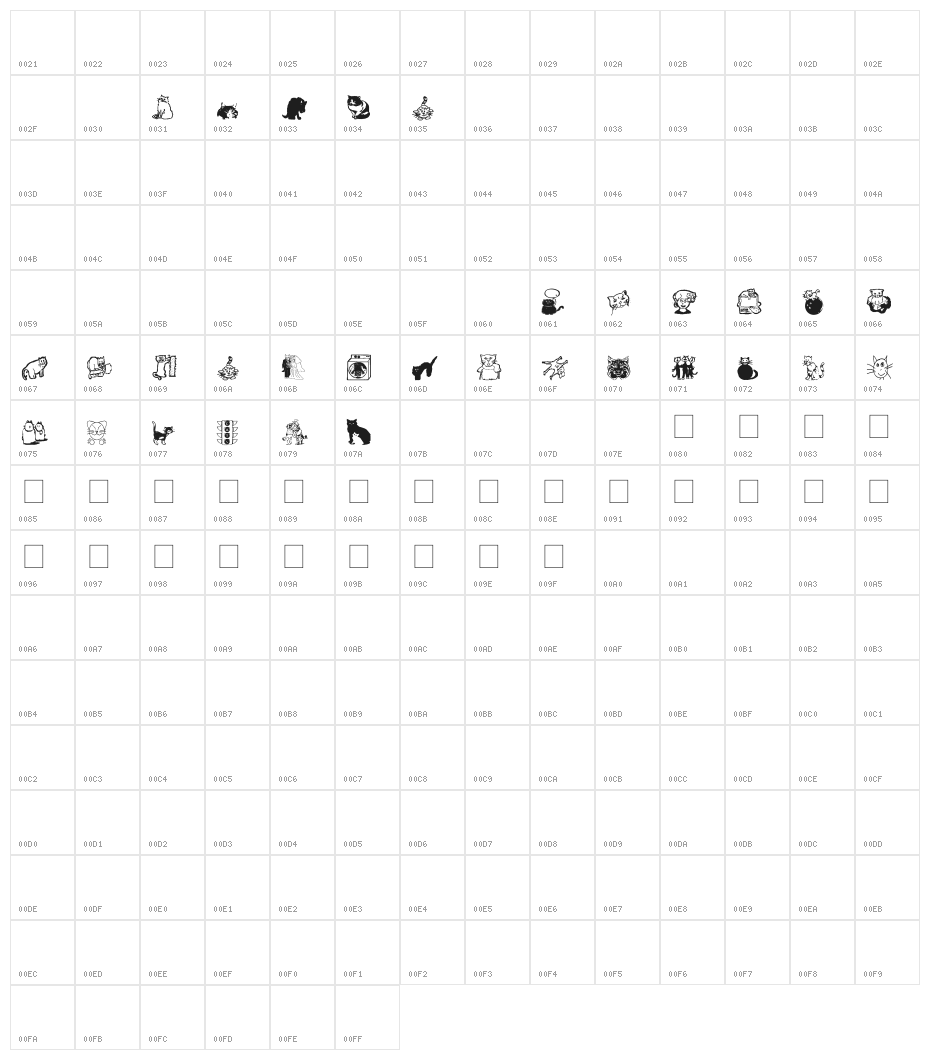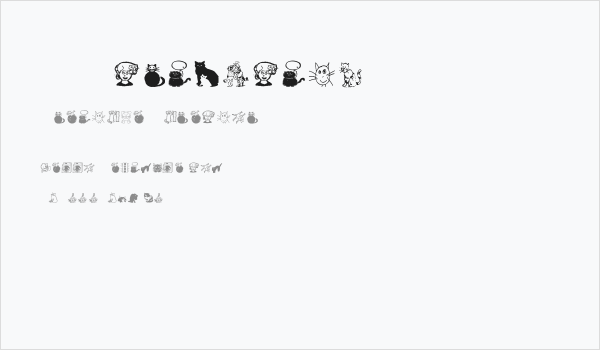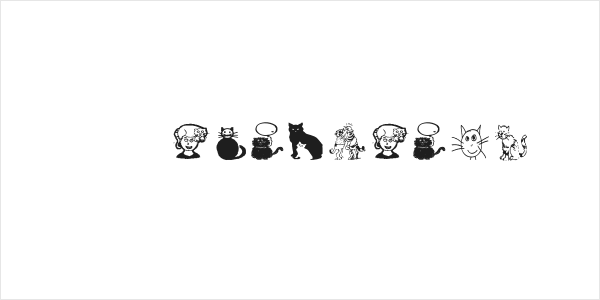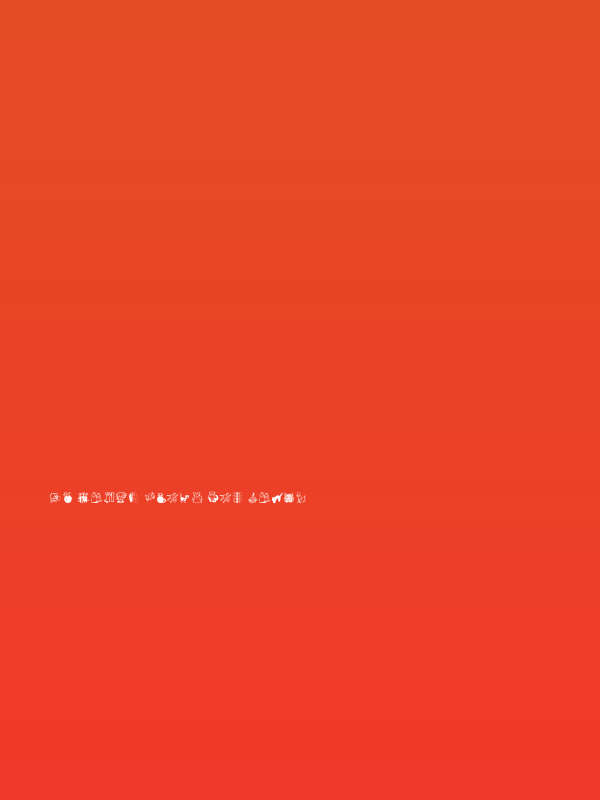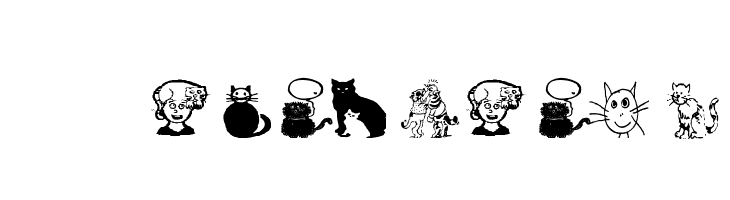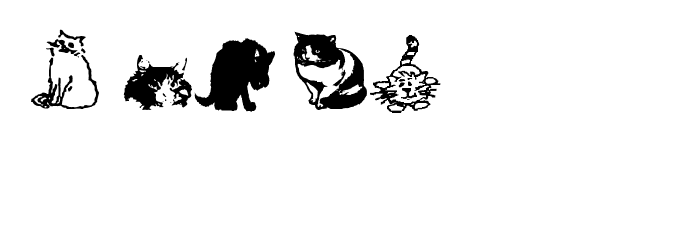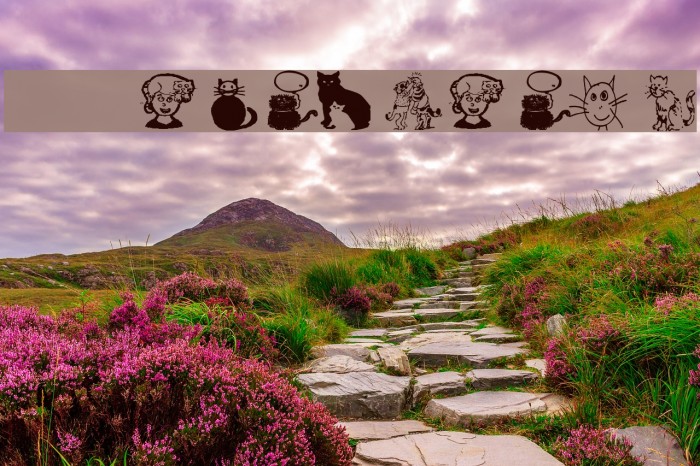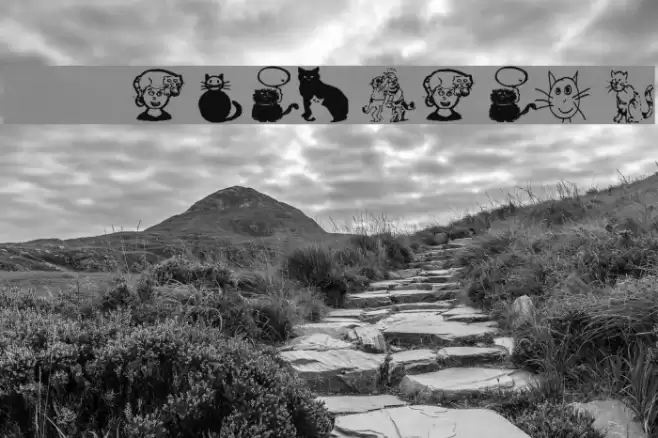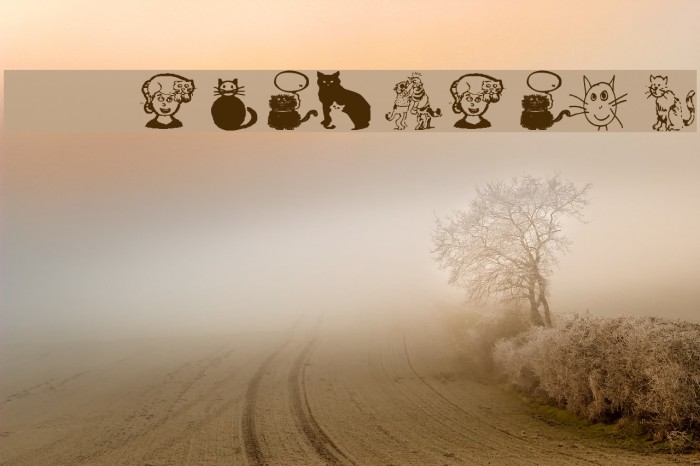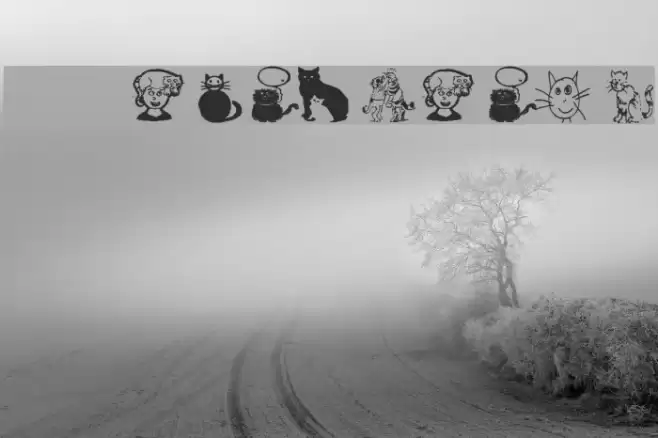
AEZcrazycats Font
AEZcrazycats Description
A playful decorative font composed entirely of various illustrated cat characters and cat-themed doodles, each glyph representing a unique cartoon-style cat or related object.
| Overall Style | Playful, Whimsical, Decorative |
| Use Case | Logos, Posters, Greeting cards, Themed party invitations |
| Proposed Projects | Children’s books, pet shop branding, greeting cards, playful posters, educational materials. |